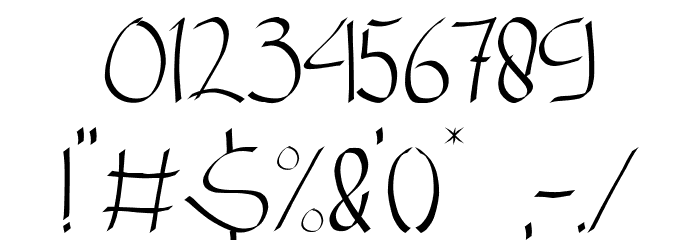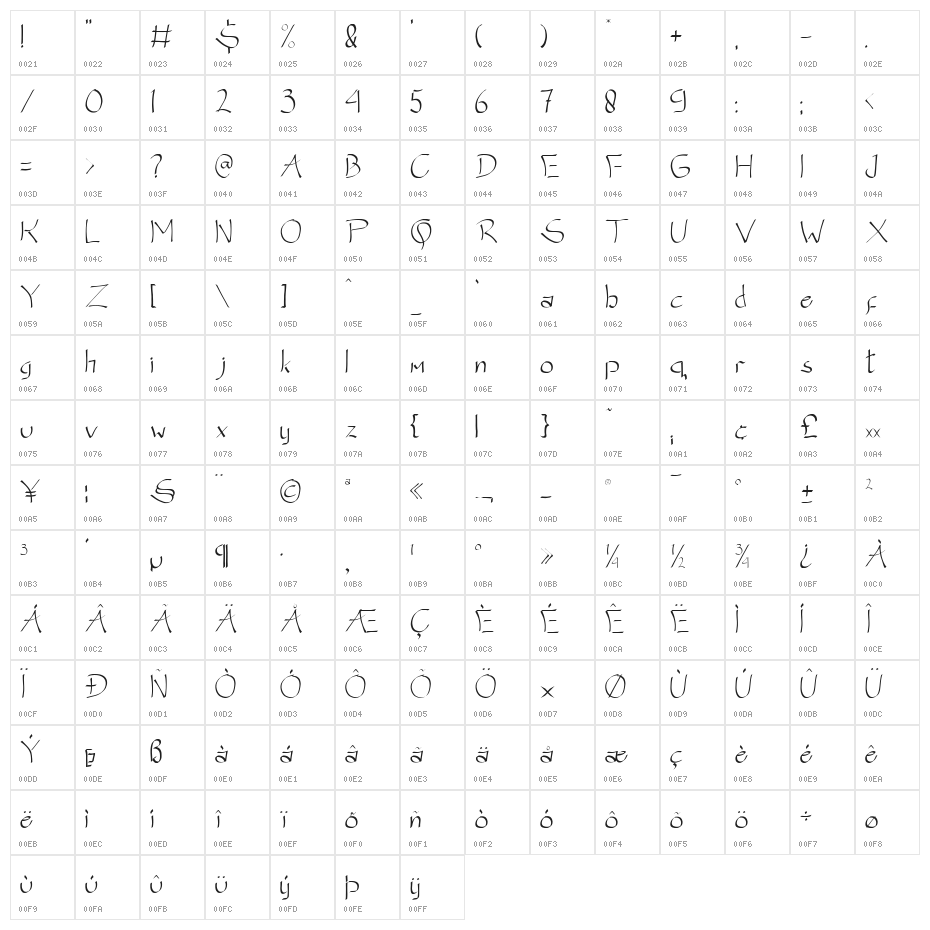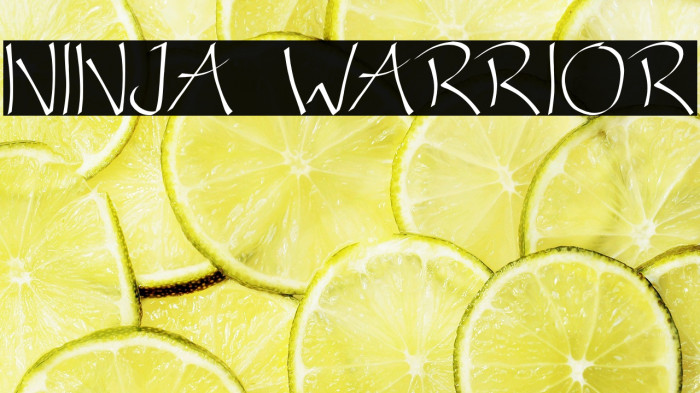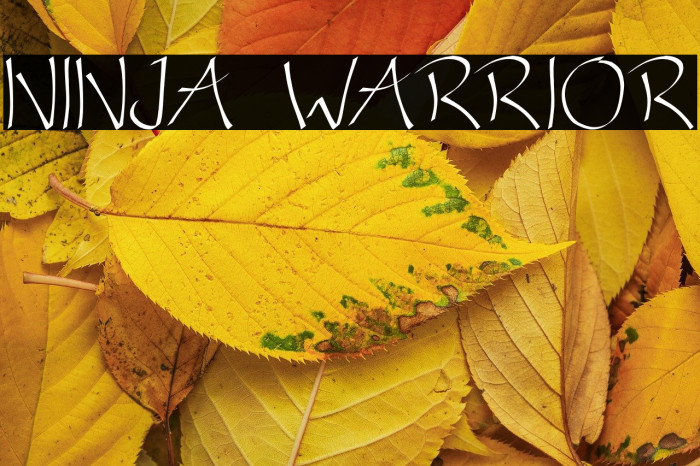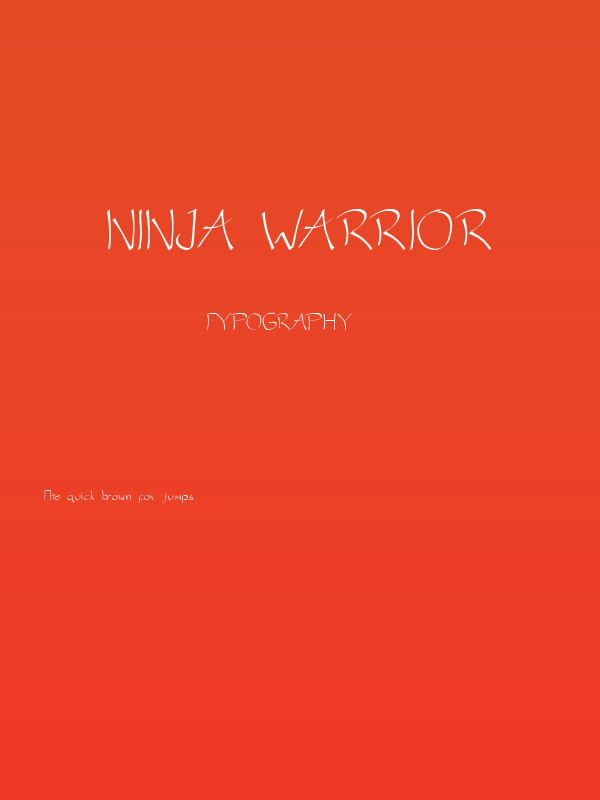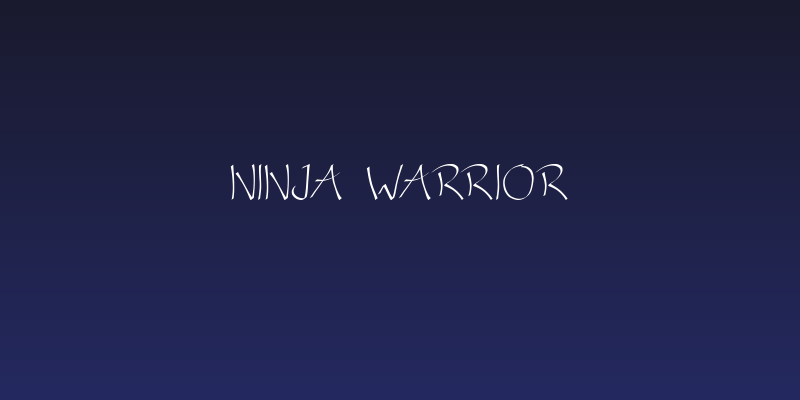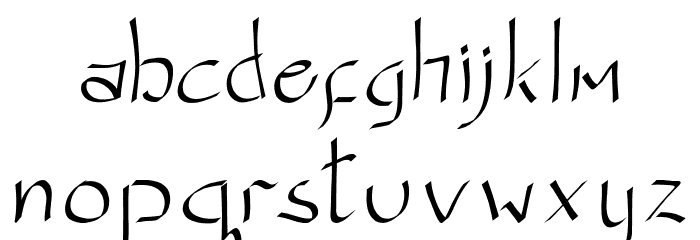
NINJA WARRIOR Font
NINJA WARRIOR Description
This font features a dynamic and sharp design, reminiscent of martial arts themes. The characters are crafted with angular strokes and pointed edges, giving a sense of movement and energy. The uppercase letters are bold and commanding, while the lowercase letters maintain a consistent style with slightly softer curves. Numbers and special characters follow the same aesthetic, ensuring a cohesive look across all text. The overall design is both modern and edgy, making it suitable for projects that require a strong visual impact.